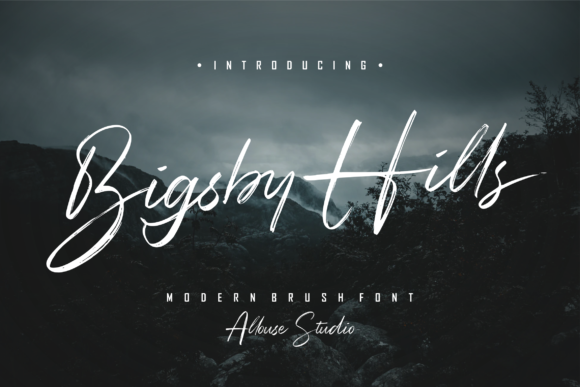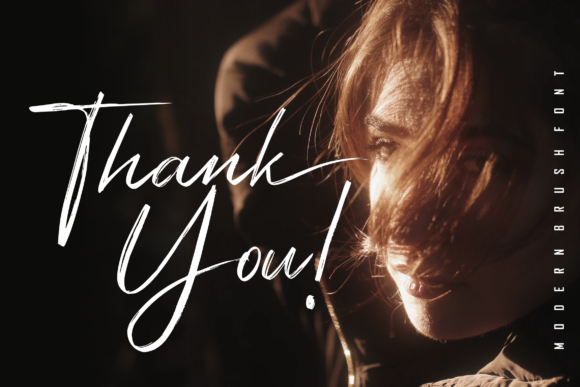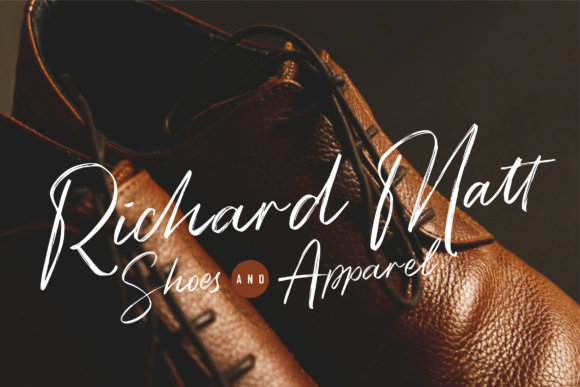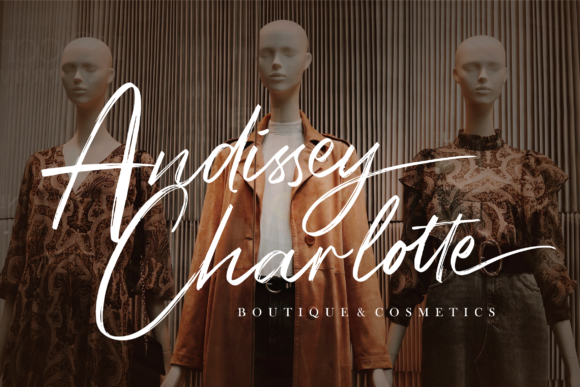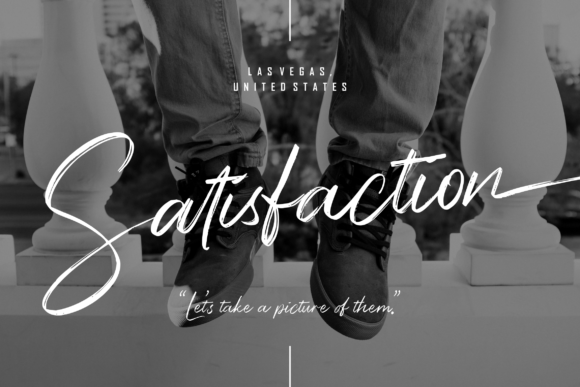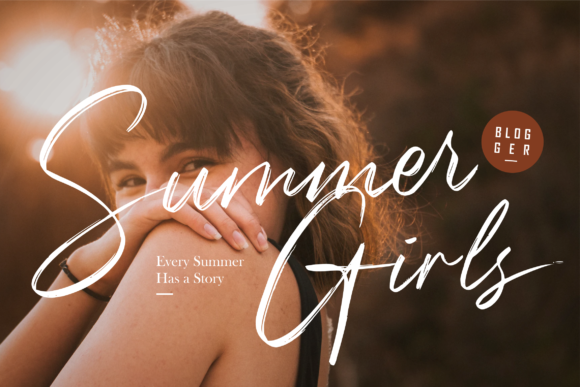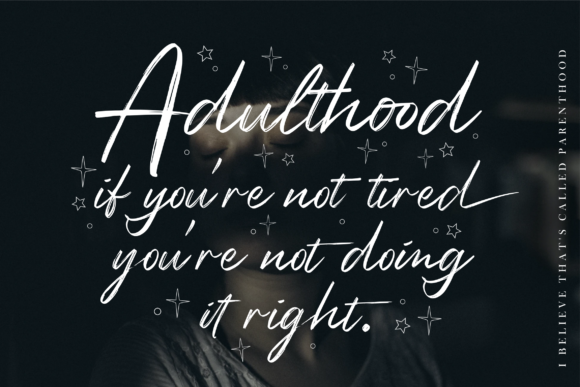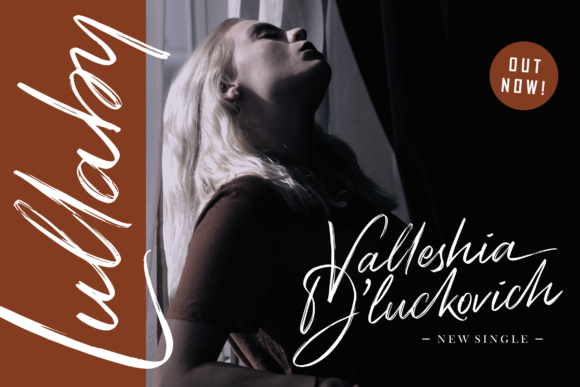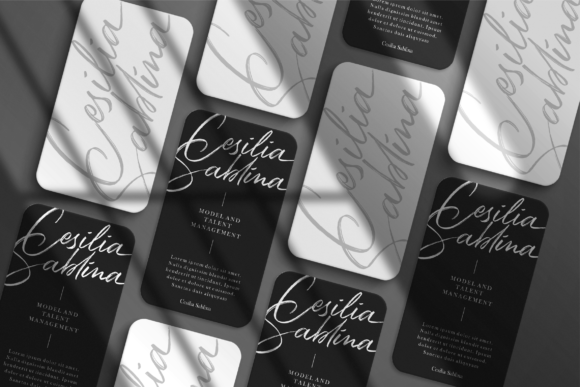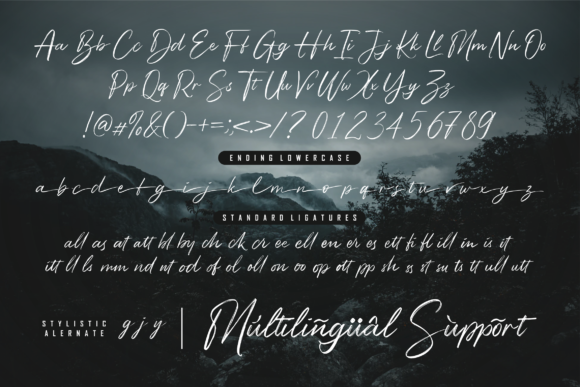
Bigsby Hills Font
About Bigsby Hills Font
Bigsby Hills is a lovely, cursive, brushed handwritten font. It has a classy, elegant and modern look that can be used for logos, branding, invitations, stationery, wedding designs, social media posts, and much more!